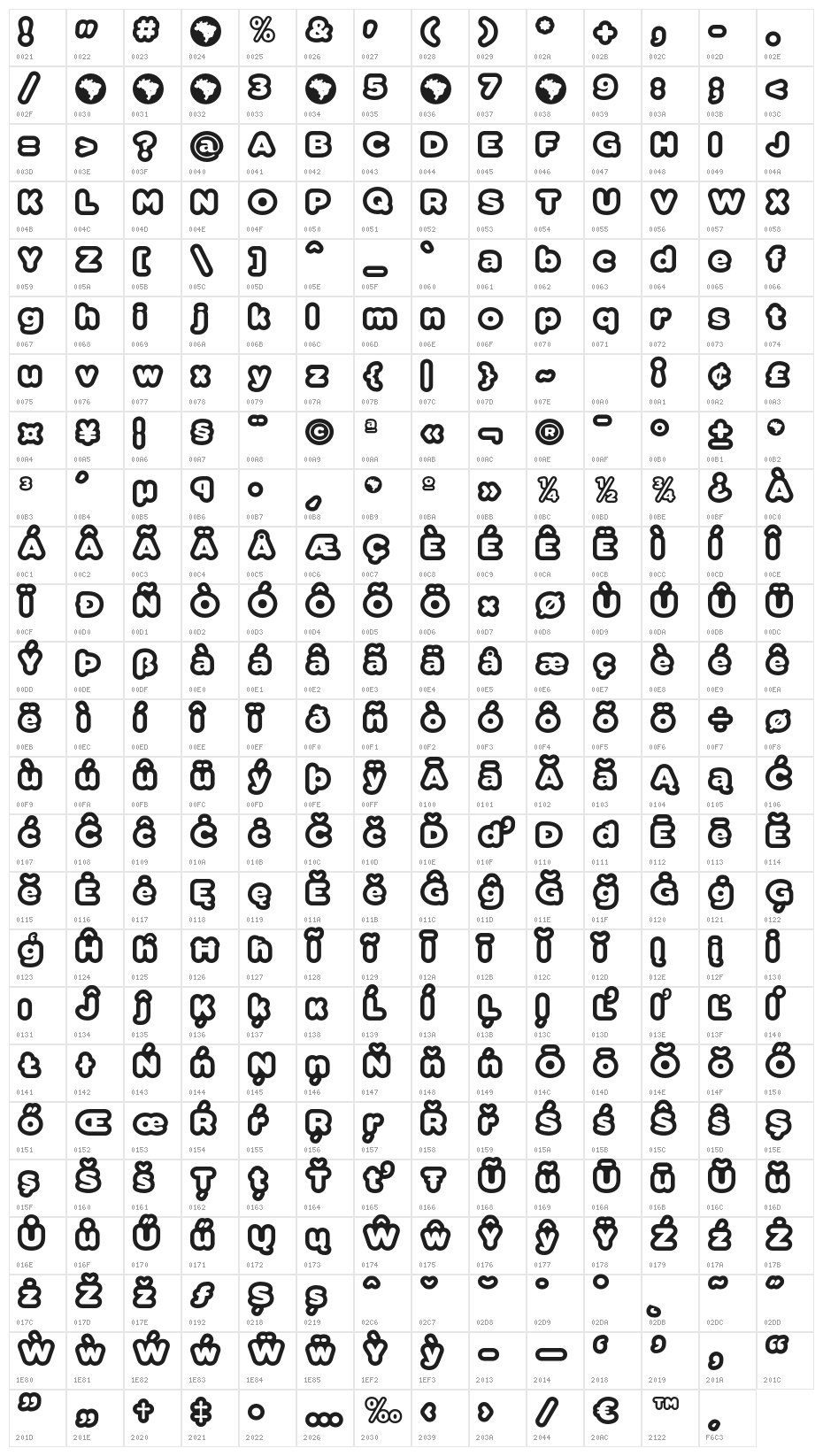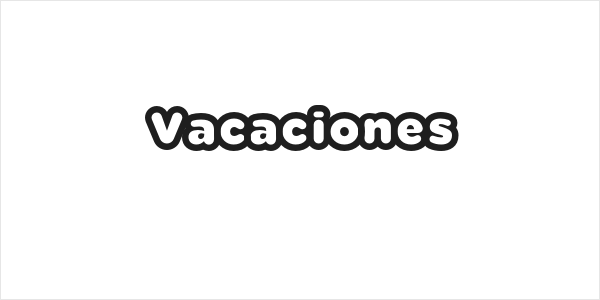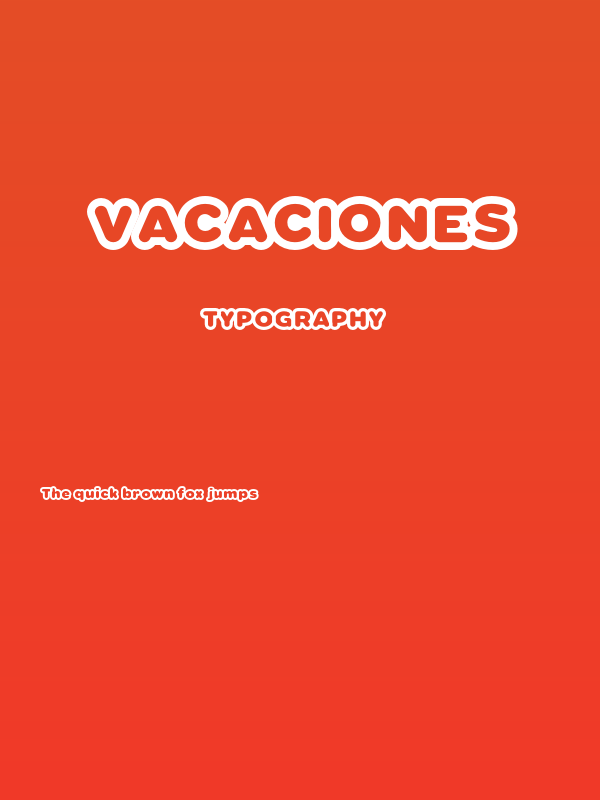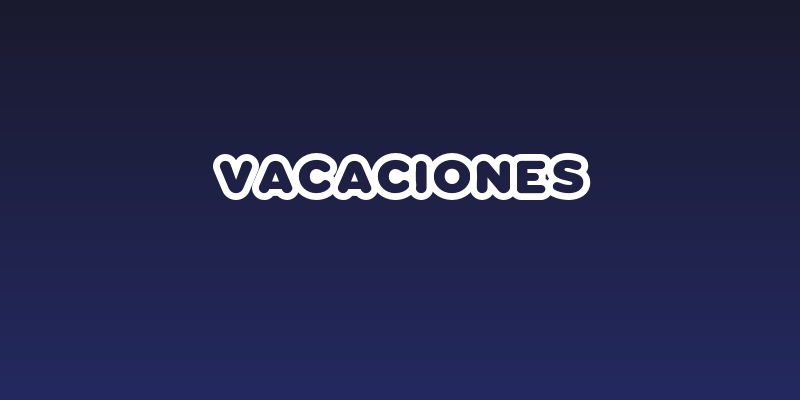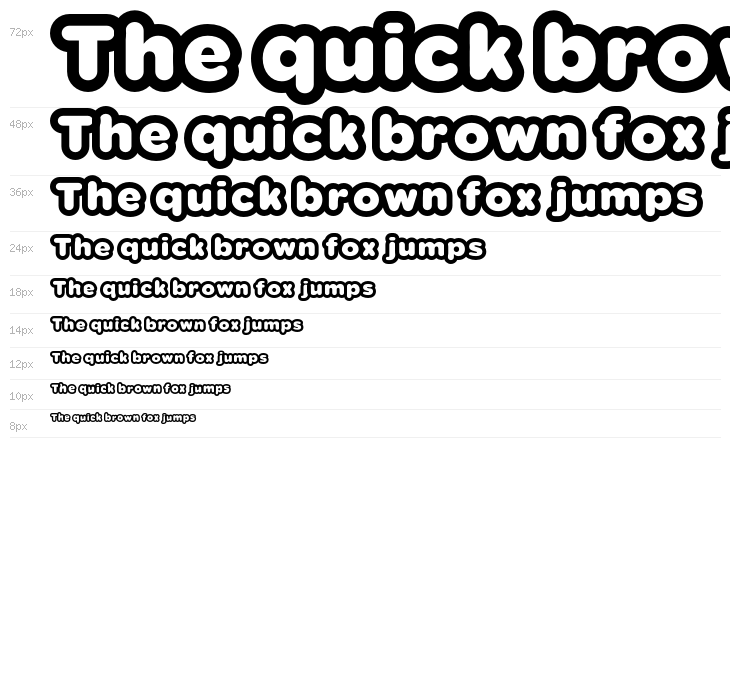
Vacaciones Font
Vacaciones Description
This font features bold, rounded characters with a playful and friendly appearance. Each letter is outlined with a thick black border, enhancing its visibility and making it stand out. The characters are uniformly wide, giving a sense of balance and consistency across the typeface. The font includes both uppercase and lowercase letters, as well as numbers and a variety of special characters. The style is reminiscent of bubble letters, often used in designs that aim to convey fun and approachability. The unique inclusion of globe symbols within the numbers adds a distinctive touch, making it suitable for travel or geography-themed projects.
Overall StylePlayful
Proposed ProjectsIdeal for children's books, travel brochures, playful branding, and educational materials.